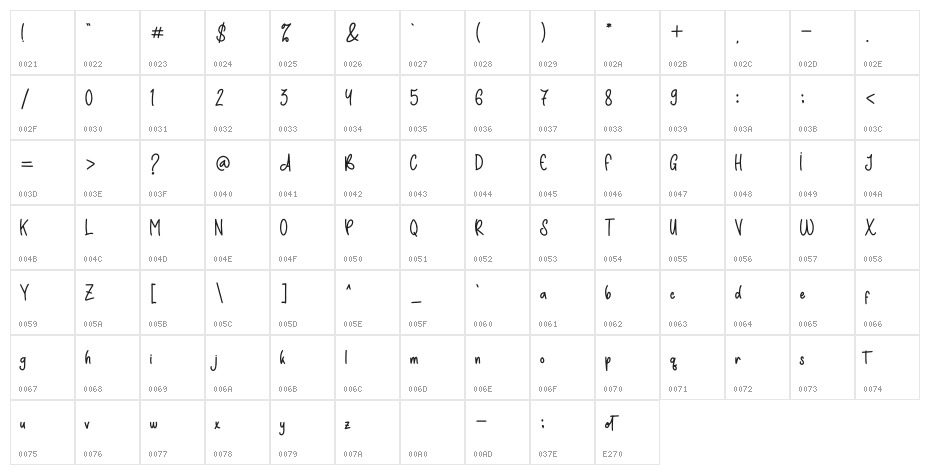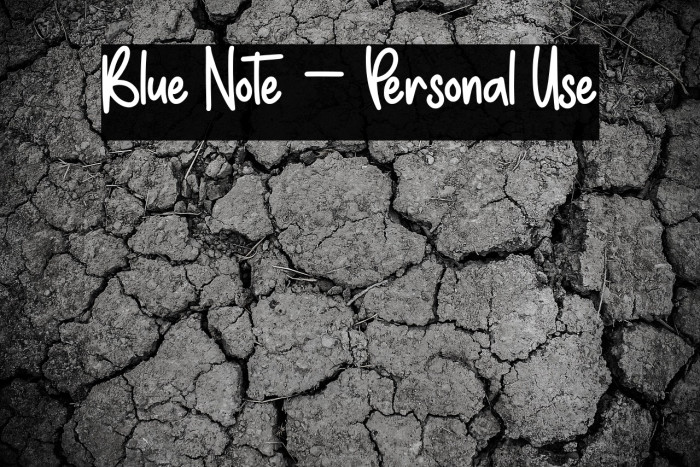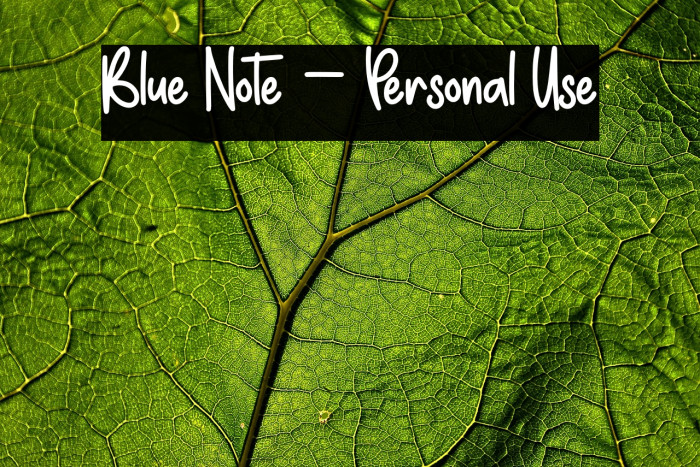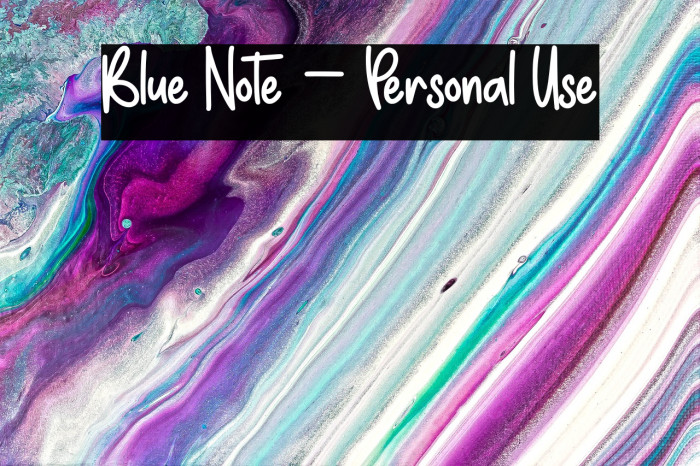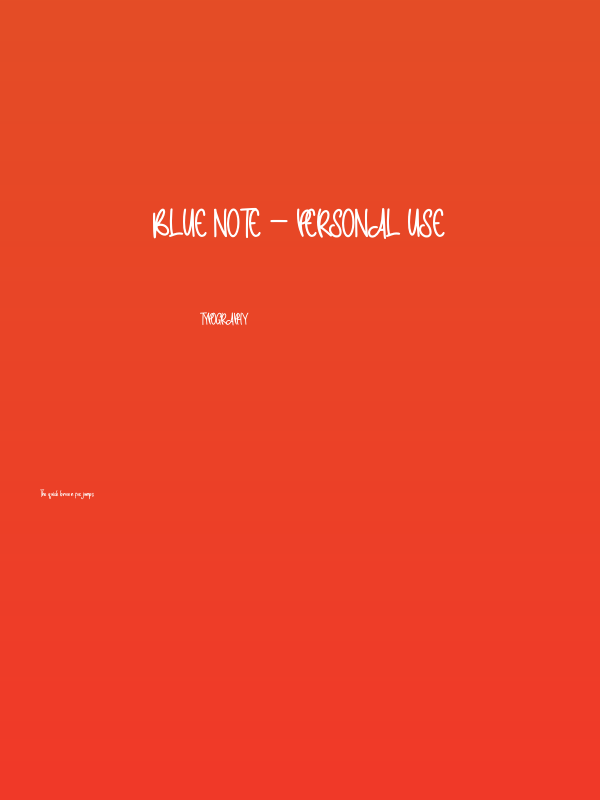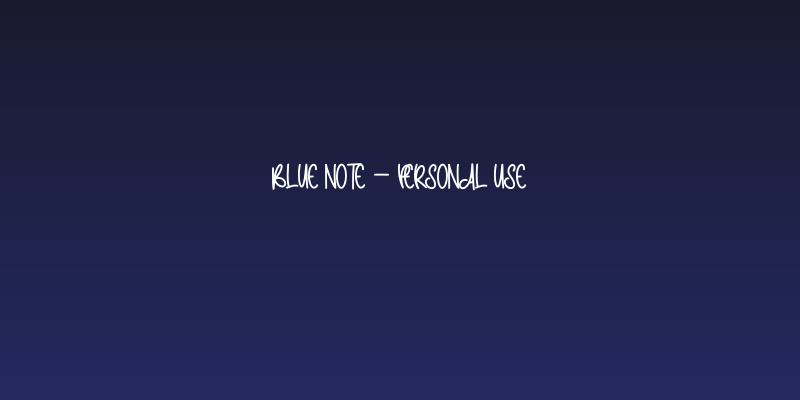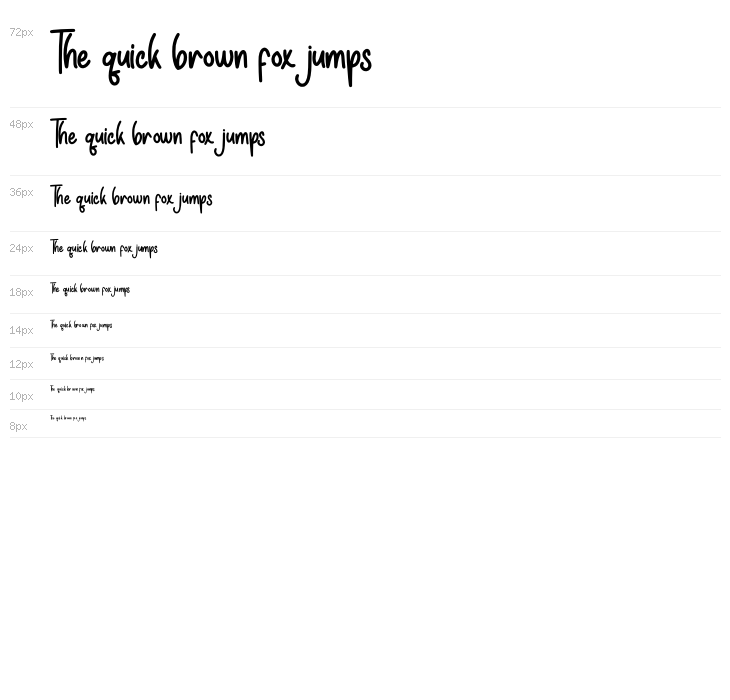
Blue Note - Personal Use Font
Blue Note - Personal Use Description
This playful and energetic font features a handwritten style with a casual and friendly appearance. The letters are slightly slanted, giving a dynamic feel, while maintaining readability. The strokes are smooth and consistent, with a slight variation in thickness that adds a personal touch. The characters are well-spaced, ensuring clarity and legibility. This font includes a full set of uppercase and lowercase letters, numbers, and a variety of special characters, making it versatile for various design needs.
| Overall Style | Casual |
| Use Case | Headlines, Logos, Informal Text |
| Proposed Projects | Ideal for greeting cards, children's books, playful branding, and social media graphics. |